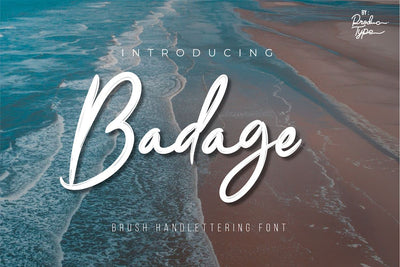
Badage
Badage is an elegant and flowing handwrittten font. A little bit quirky, this font is the perfect fit for all of your logos, branding, social media, and crafty DIY projects.
This font will turn any creative idea into a true piece of art, this font is perfect for strong text with displays for a wide variety of branding, advertising, posters, banners, packaging, headlines, outdoor activity, websites, logo design, and more.